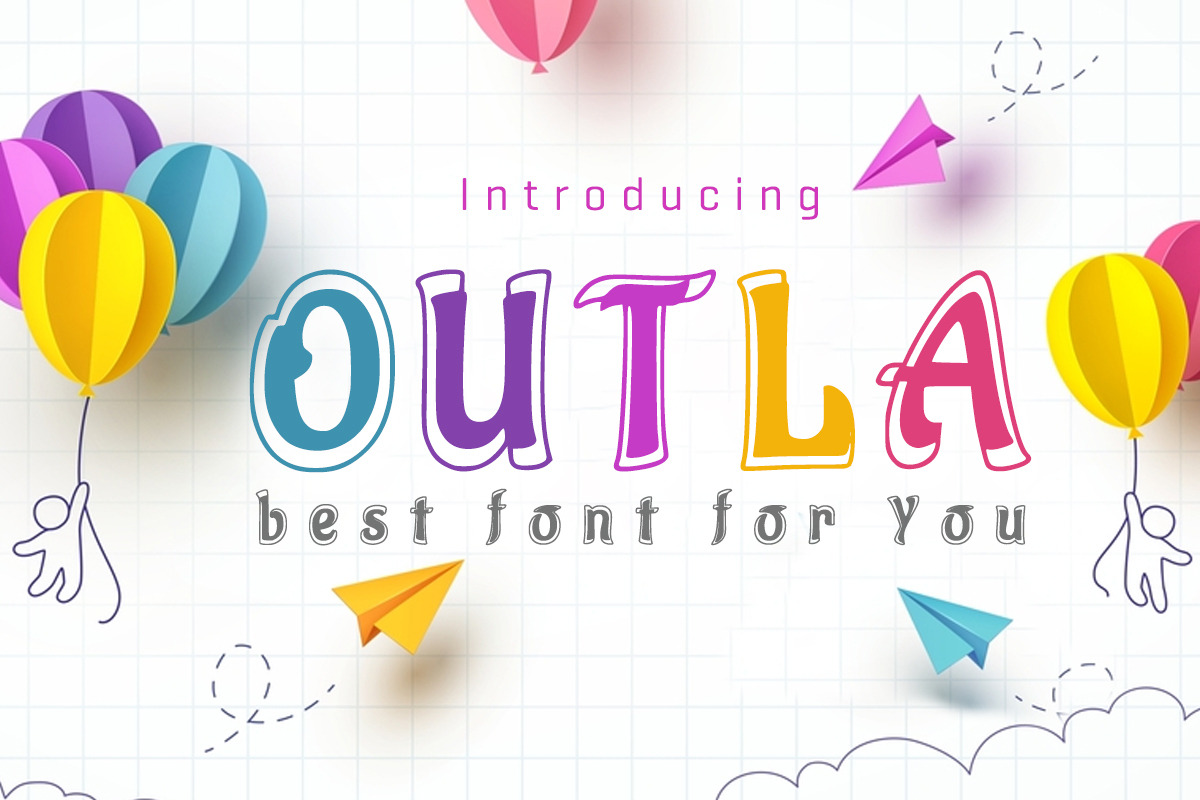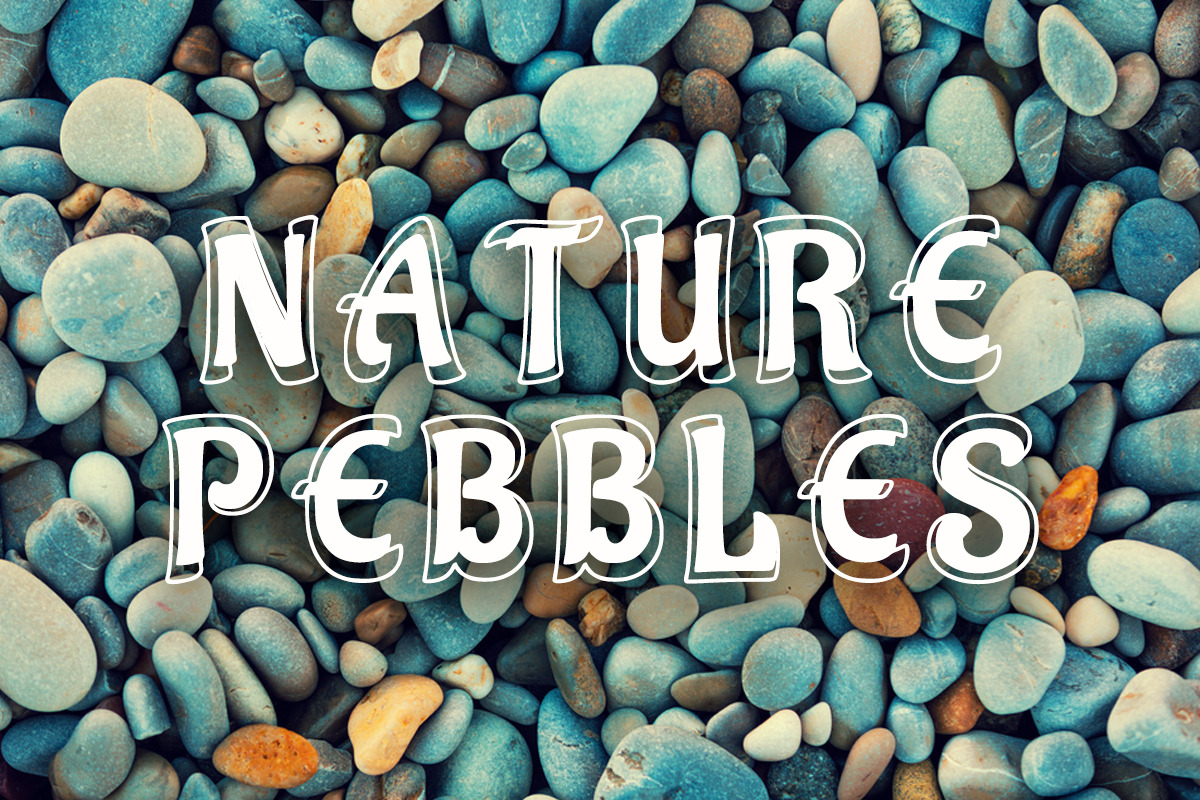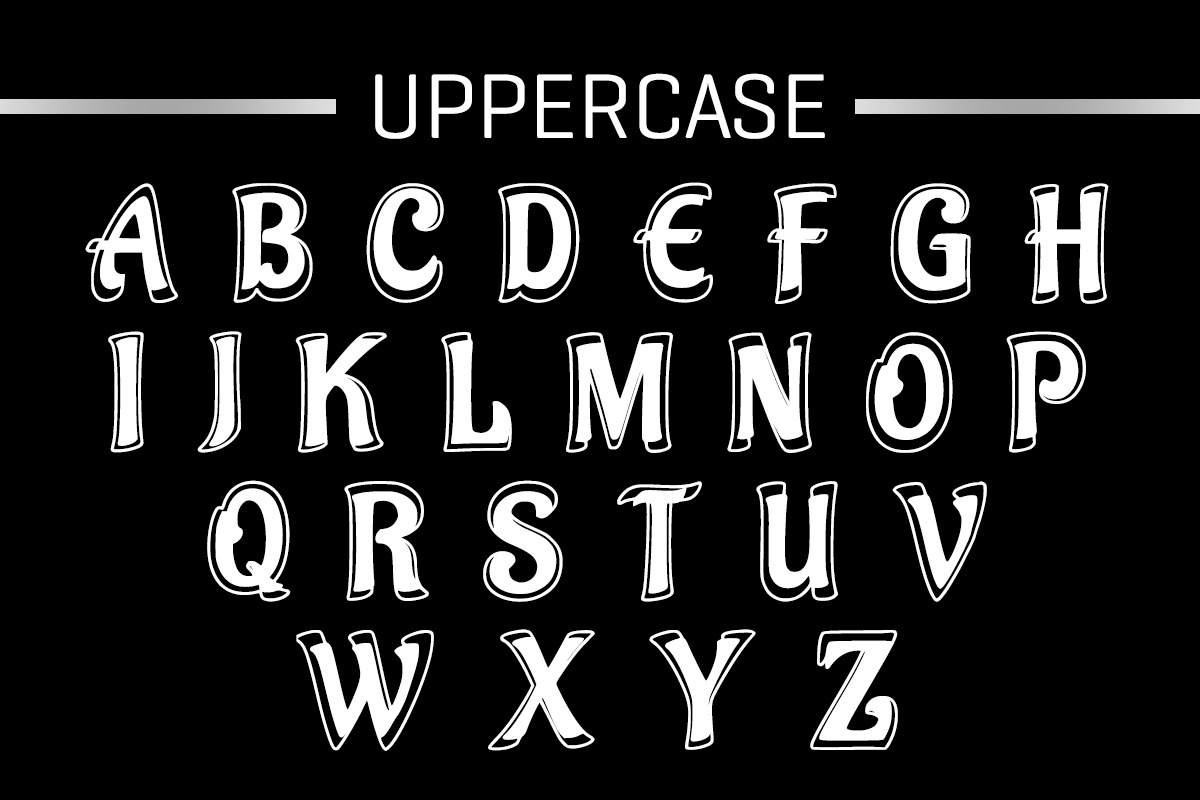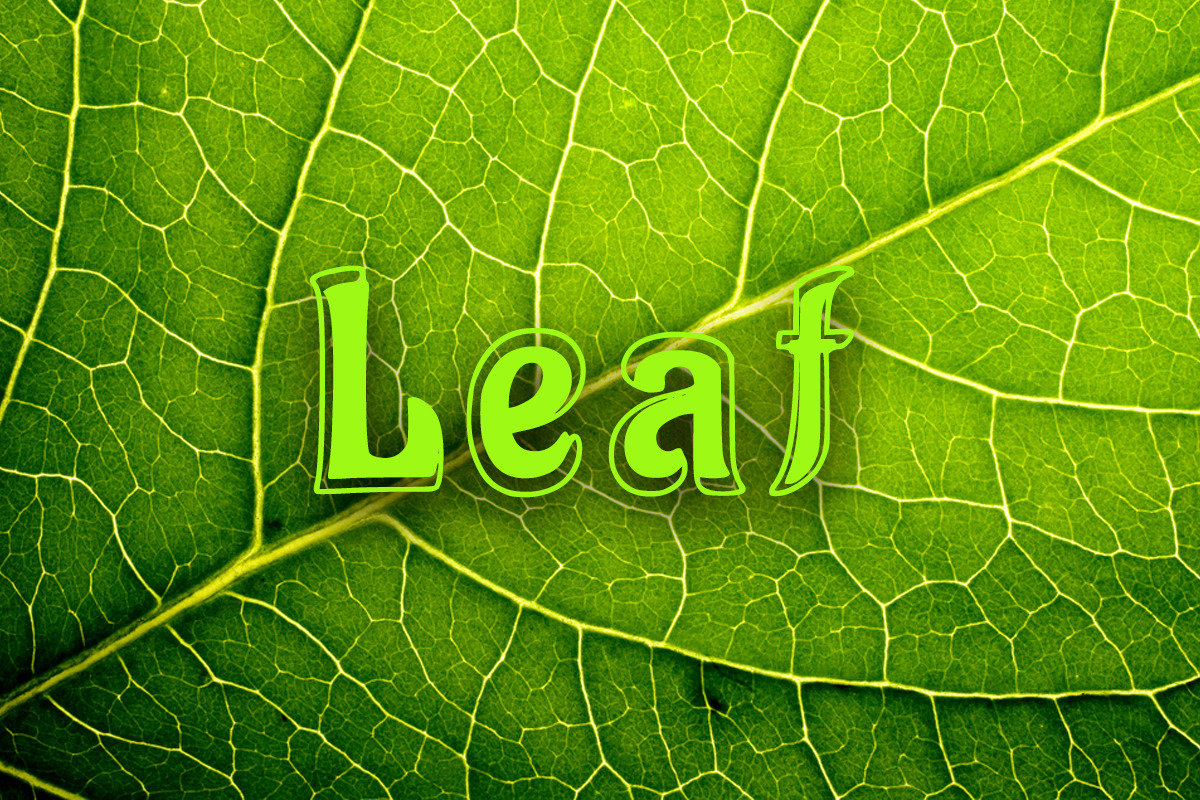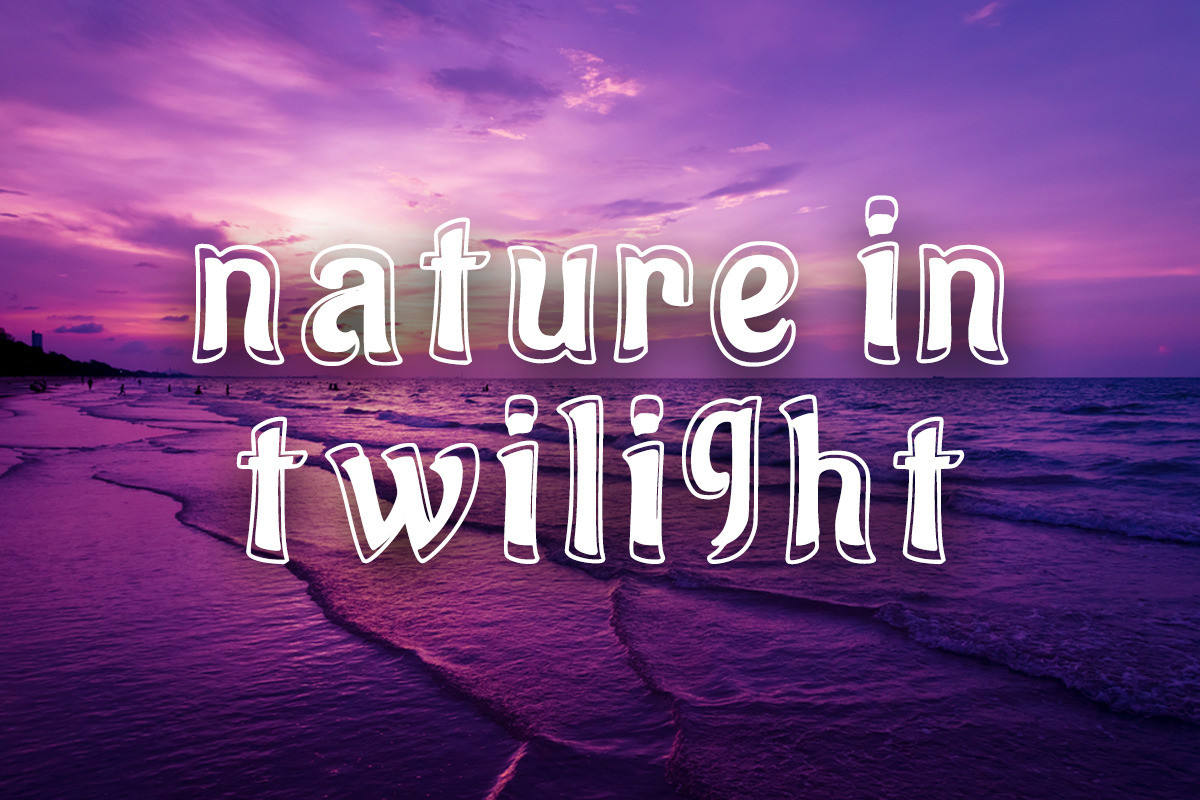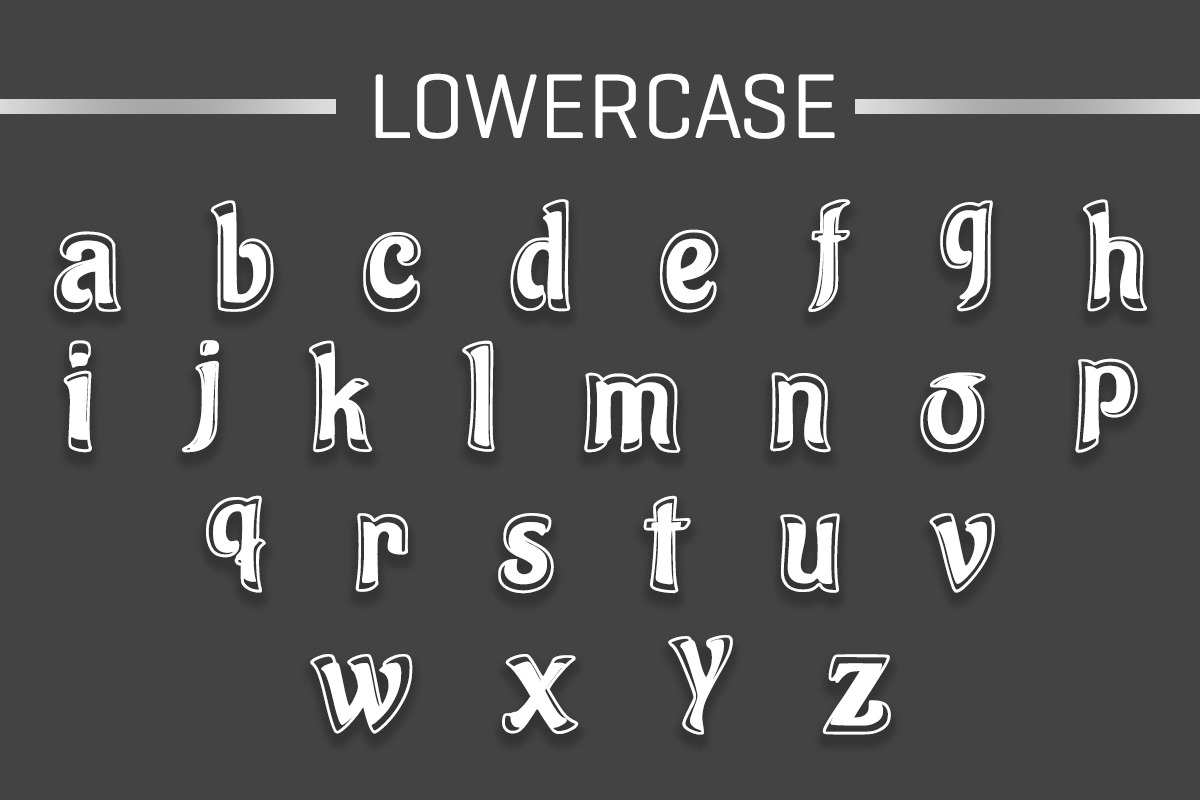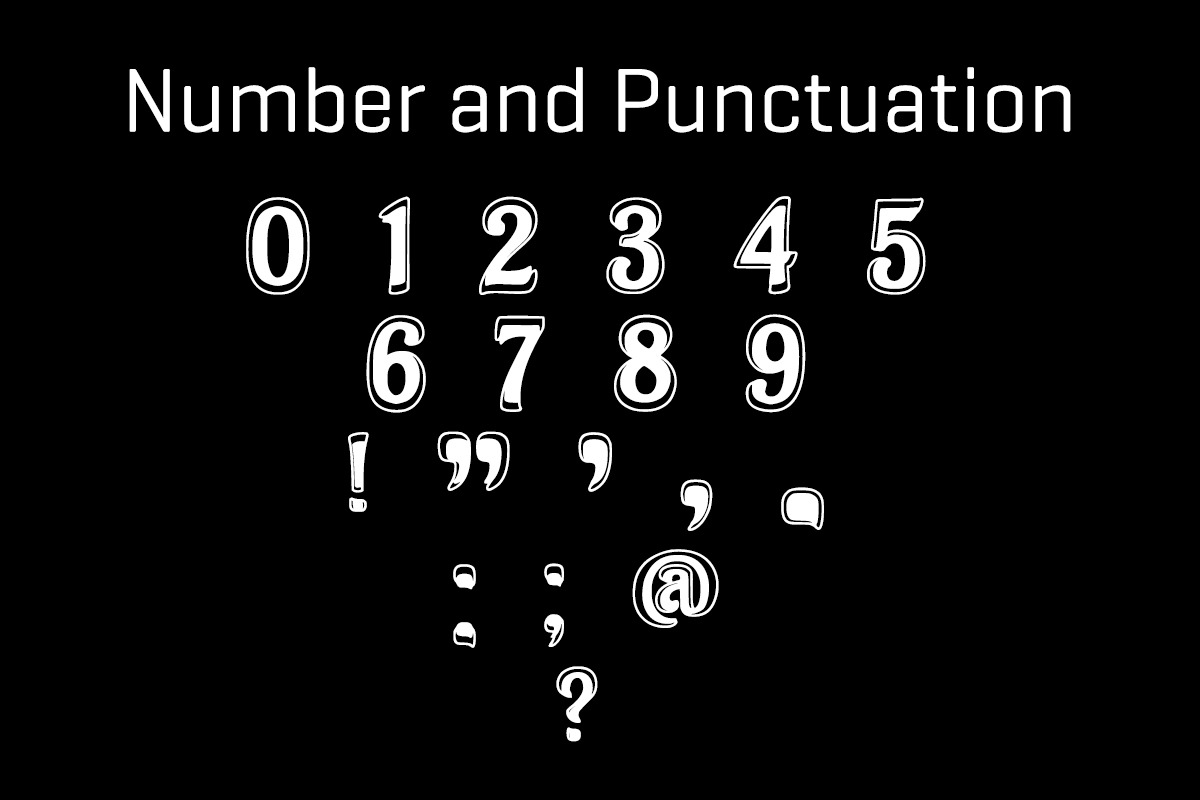
Outla Font
Outla is a cool and fun display font with a quirky, irregular baseline. Whatever the topic, this font will be a wonderful asset to your font library, as it has the potential to enhance any creation.